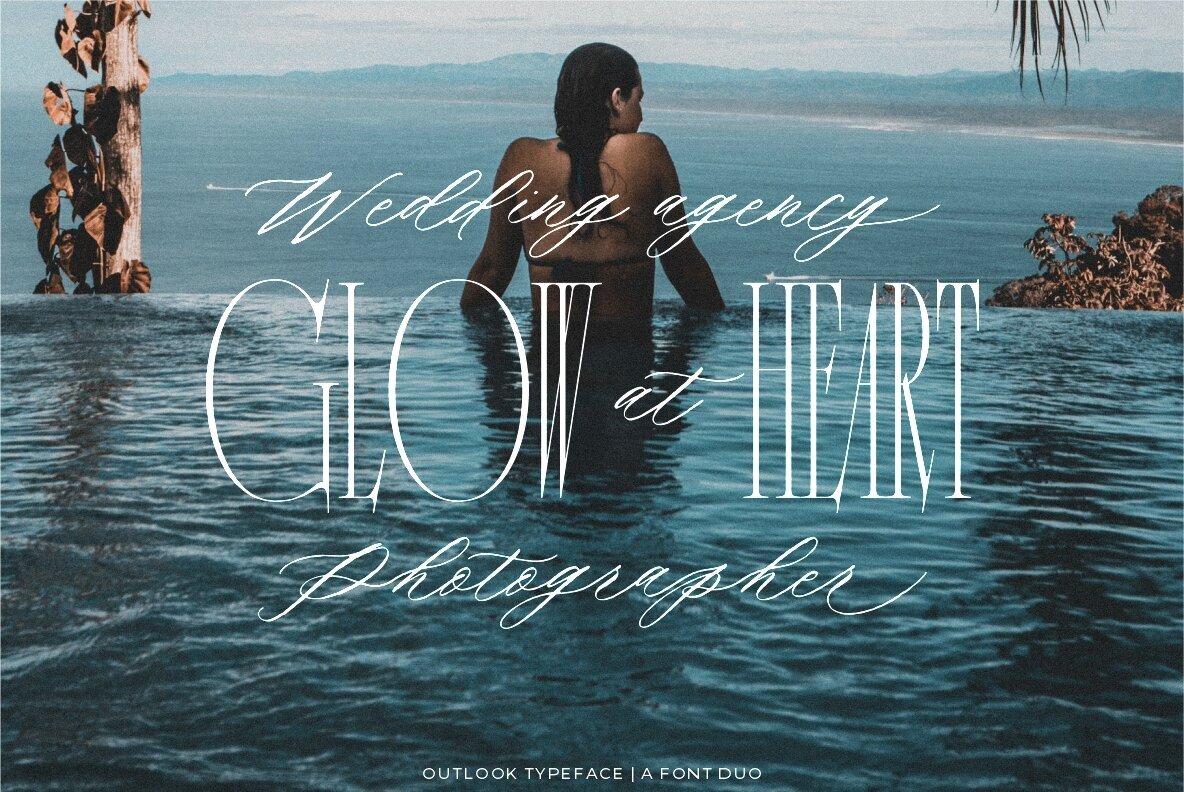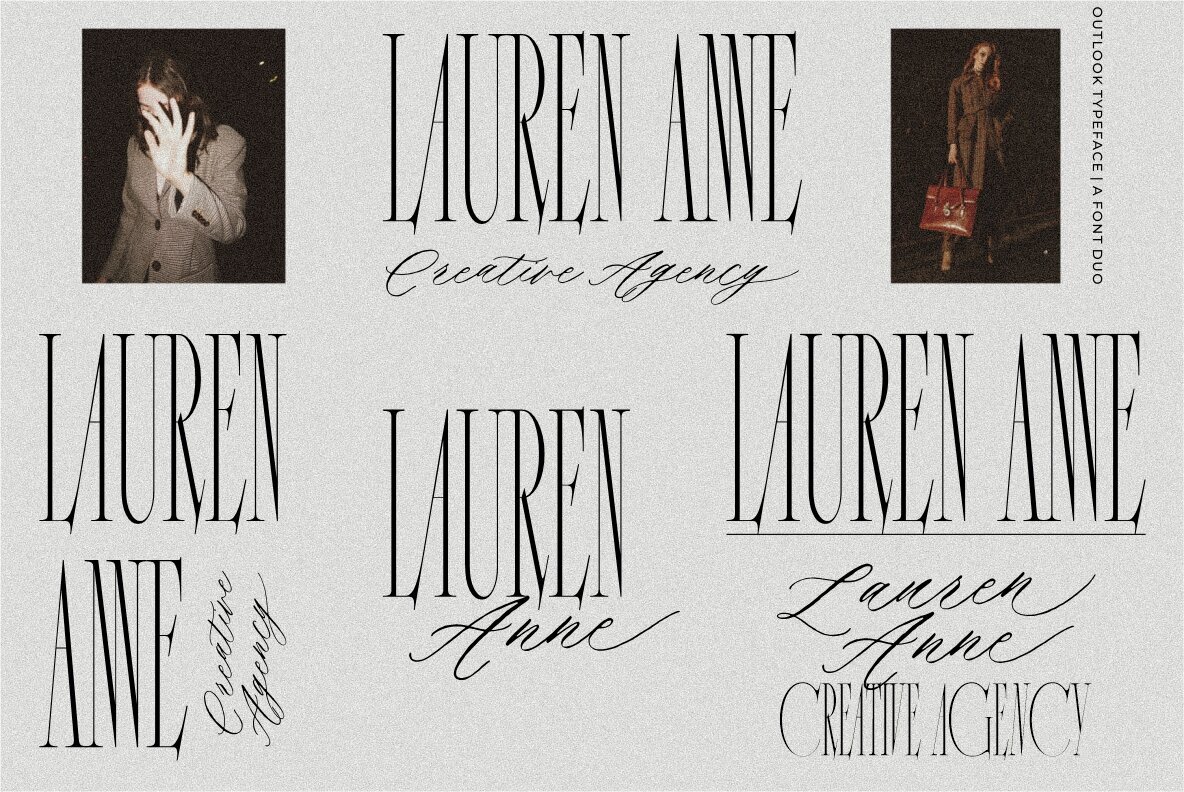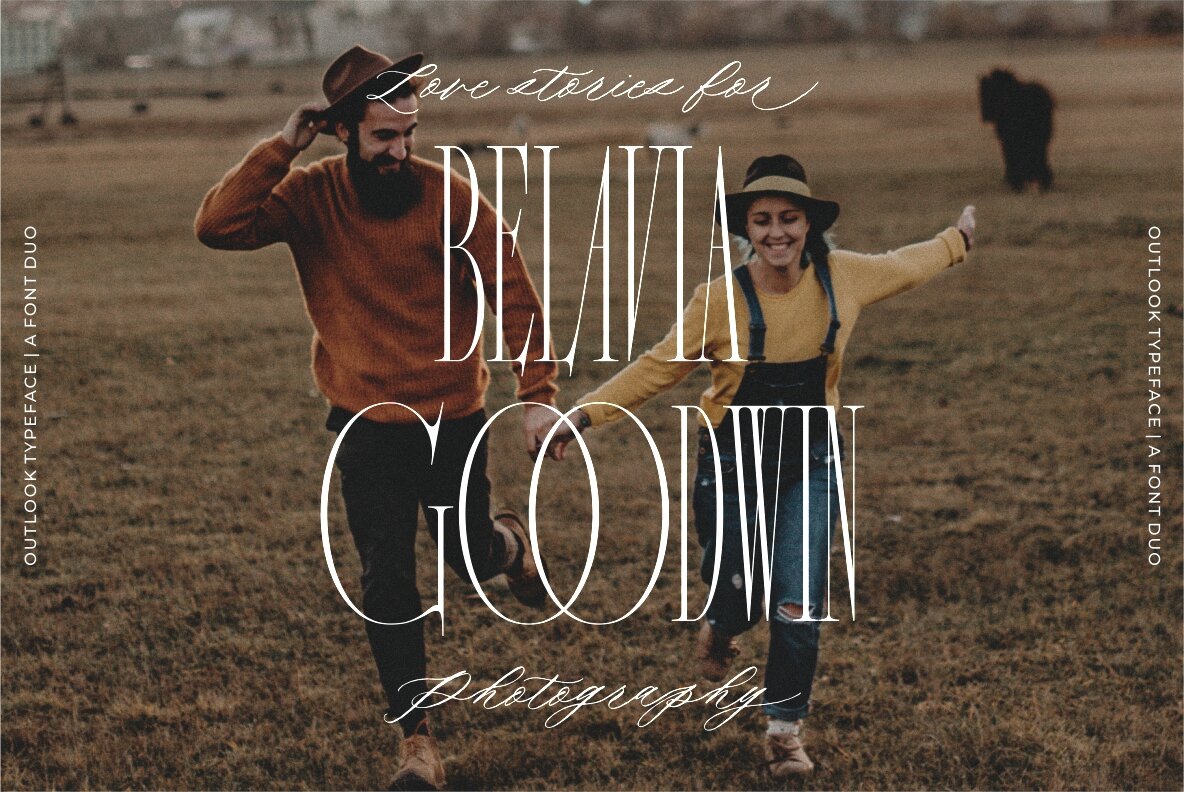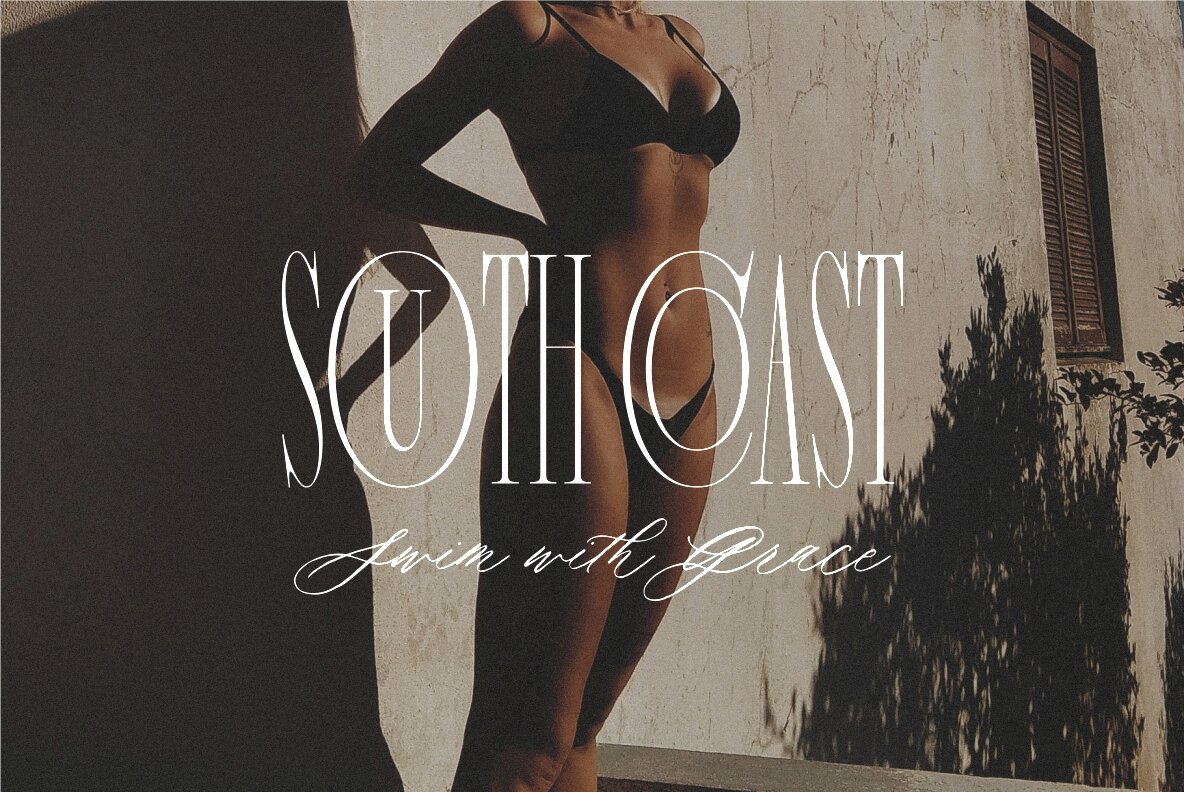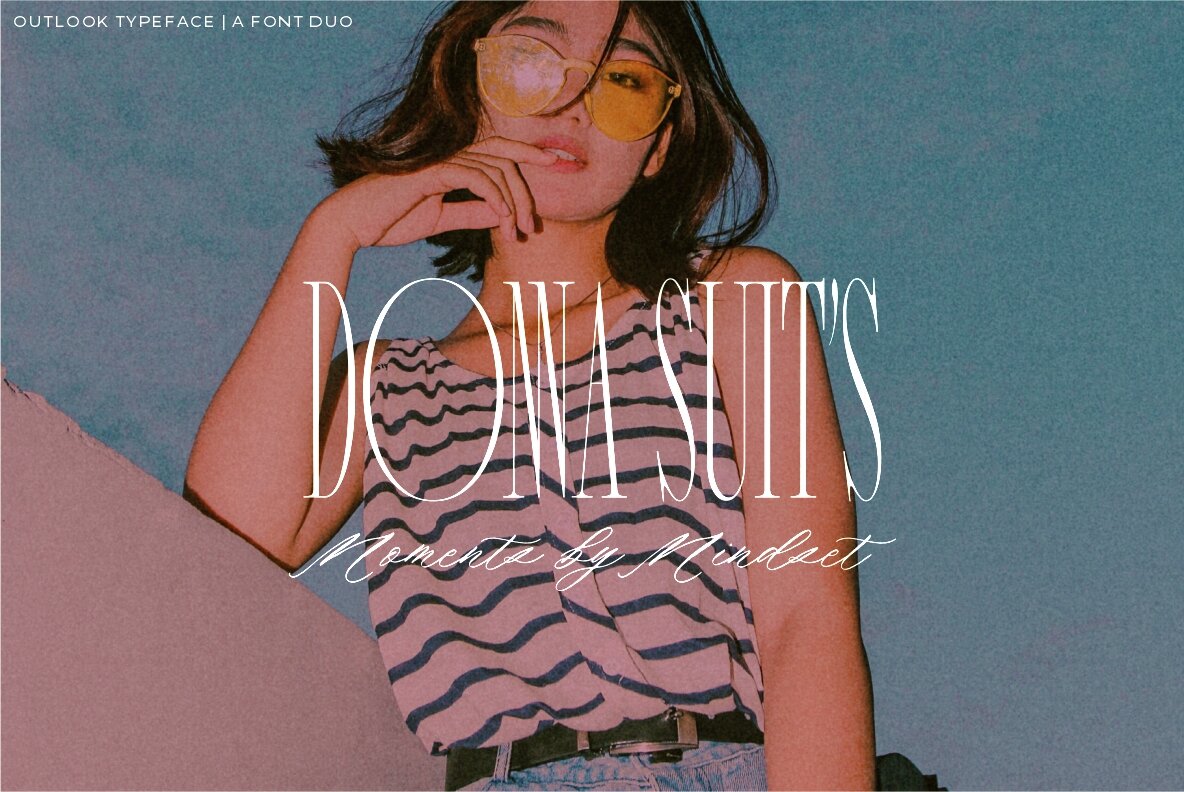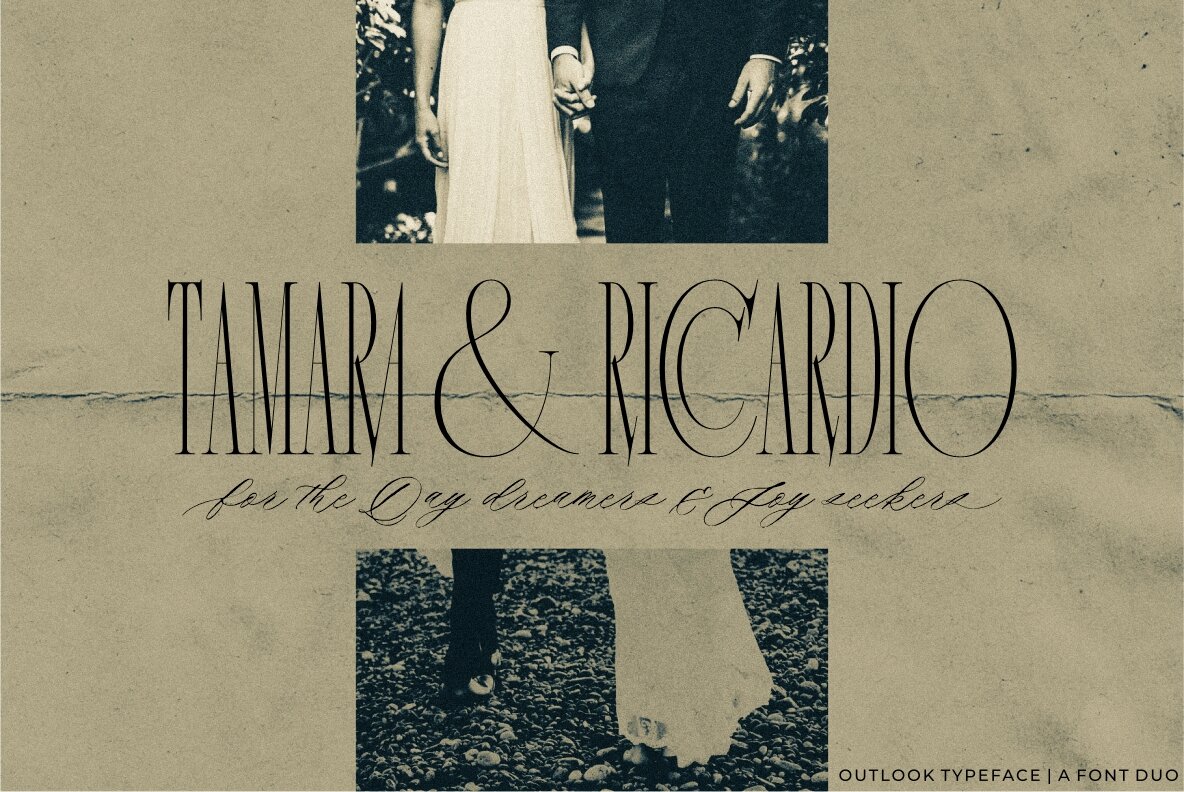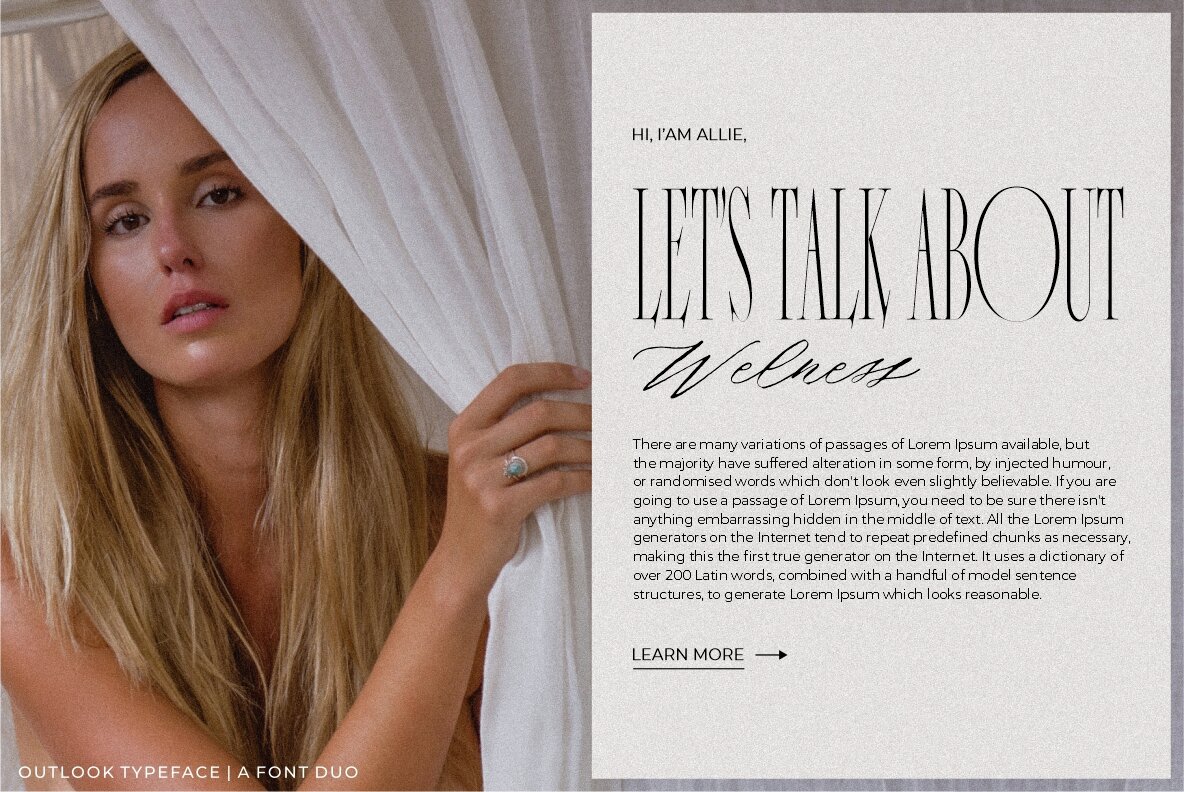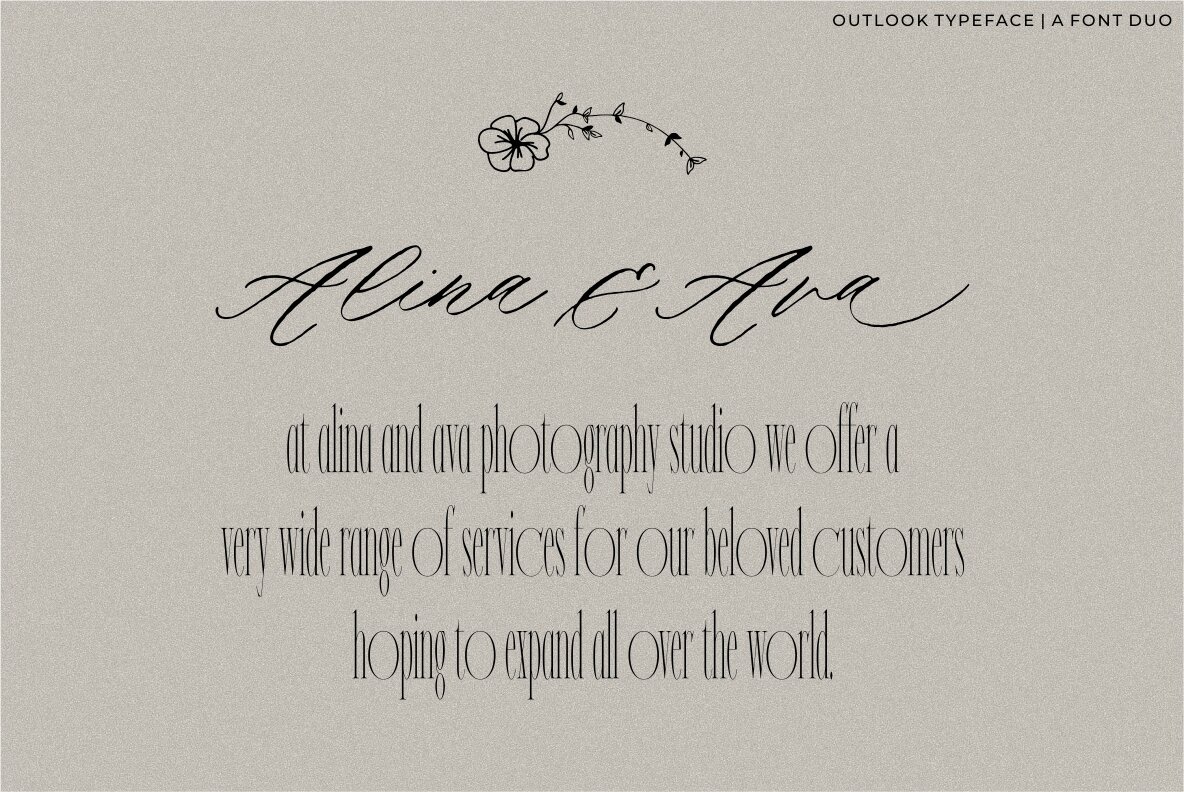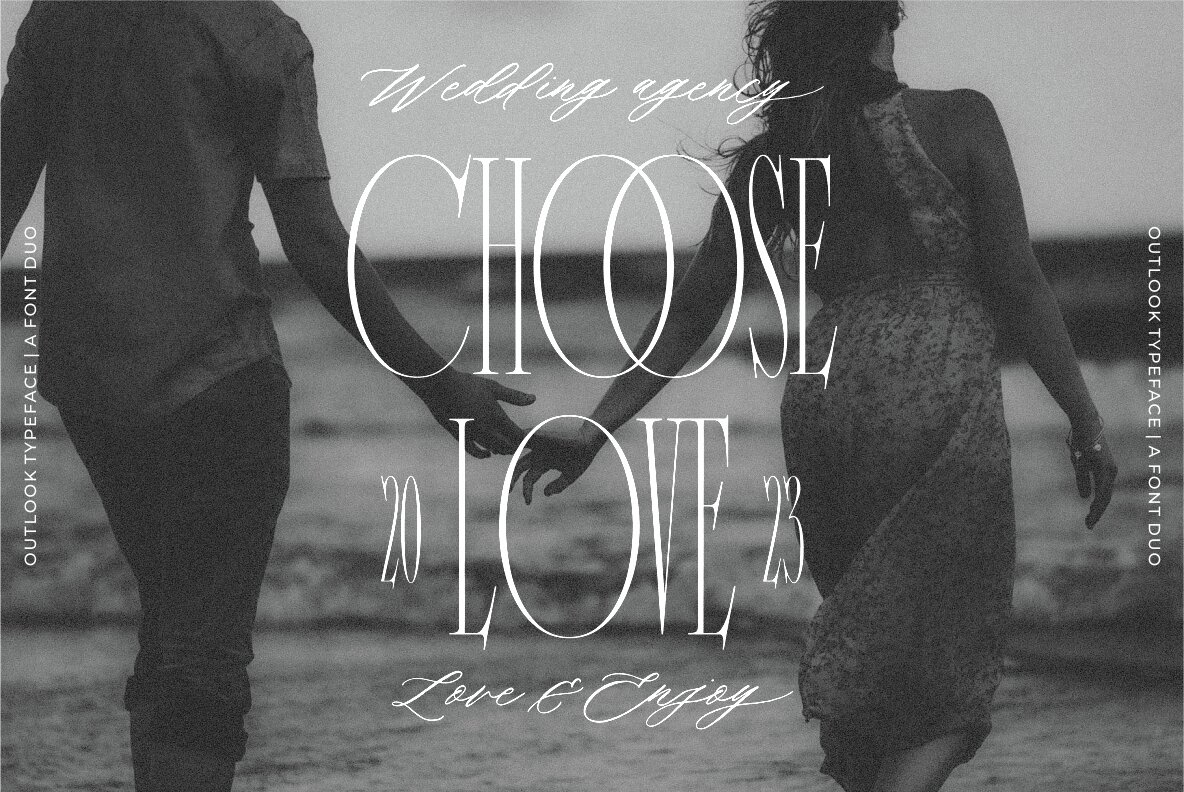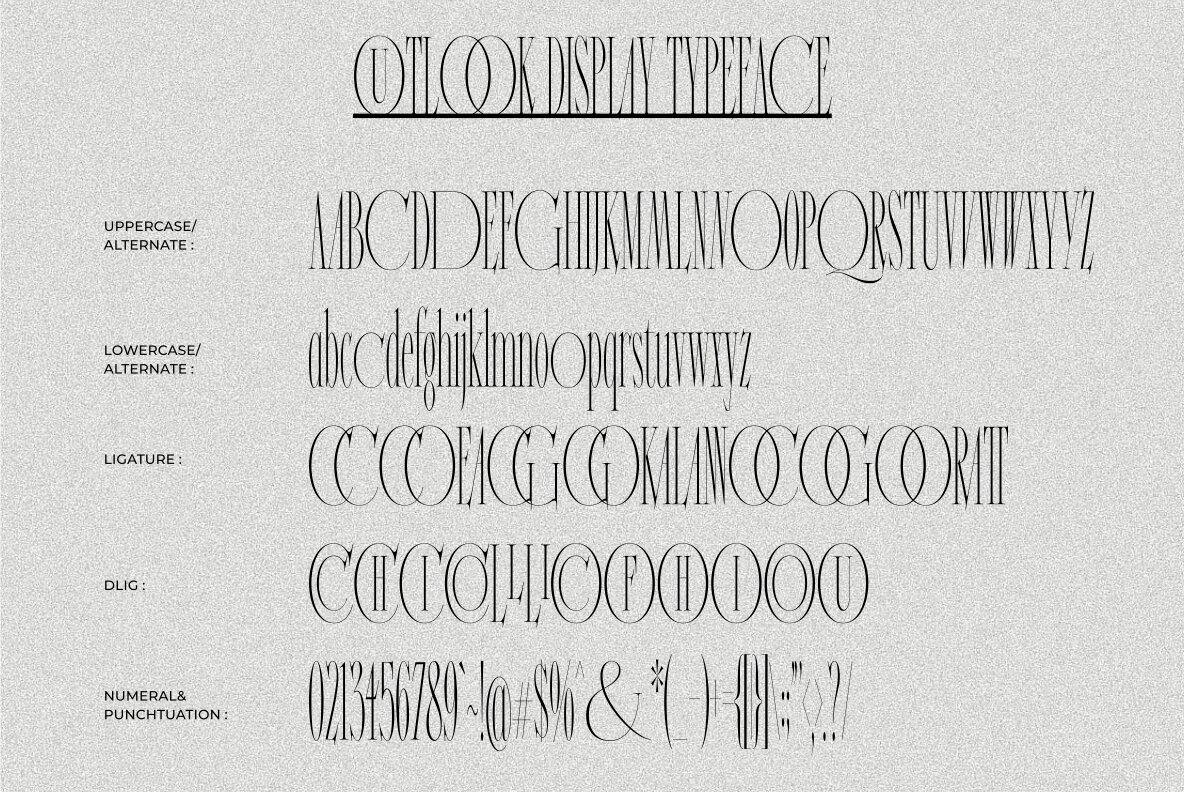
Outlook Font Duo
Outlook Font Duo offers a perfect combination of elegance and versatility by seamlessly blending serif and script font styles. This font duo provides a harmonious balance between a sophisticated and traditional serif typeface and a stylish and handcrafted script font, resulting in a visually captivating and dynamic typography experience. The serif font of Outlook Font Duo exudes a sense of refinement and classic appeal. Its letterforms are meticulously crafted with clean lines, precise curves, and balanced proportions, also includes many ligatures (CC,CO,EA,GG,GO,KA,LA,NN,OC,OG,OO,RA,TT) and dligatures (CC,CH,CI,CO,LL,LI,OC,OF,OH,OI,OO,OU) which lso you can see in the preview. Complementing the serif font, the script font of Outlook Font Duo adds a touch of creativity and informality. The script font features hand-drawn letterforms with rough strokes.This script font also includes ligatures, lowercase swsh which lso you can see in the preview. The versatility of Outlook Font Duo lies in its ability to be used together or separately, offering flexibility in creating various design compositions. Outlook Font Duo is suitable for a wide range of design projects, including branding, logos, packaging, invitations, and editorial designs. Feel free to give me a message if you have a problem or question. Thank you so much for taking the time to look at one of our products. ~Redy